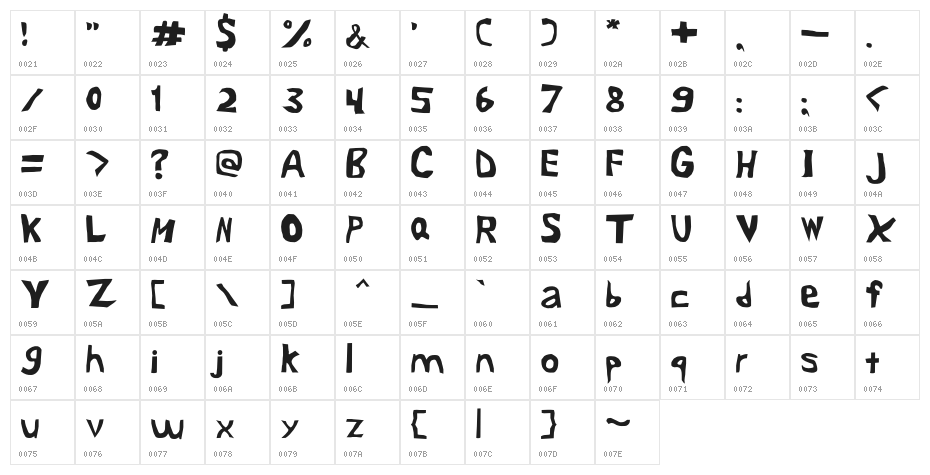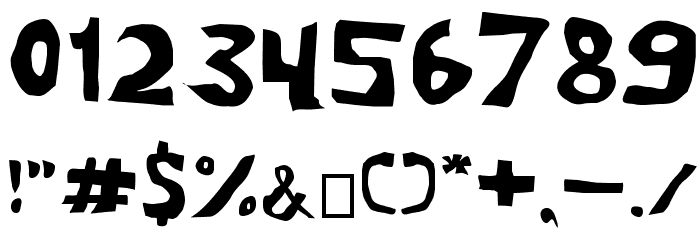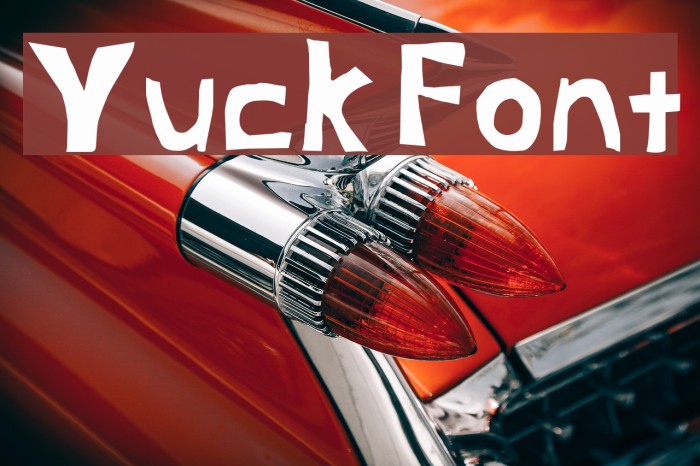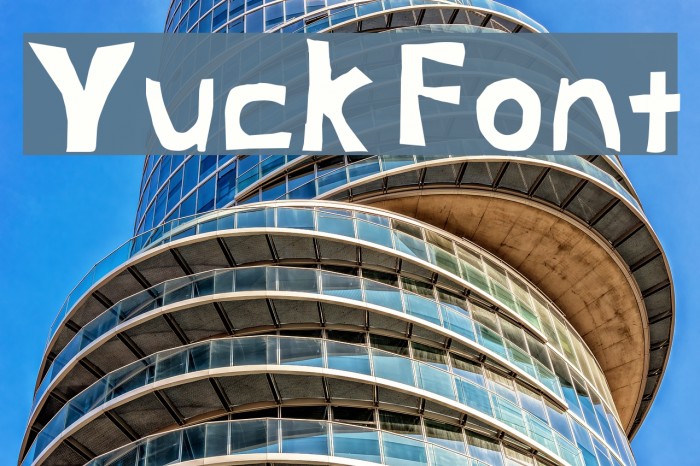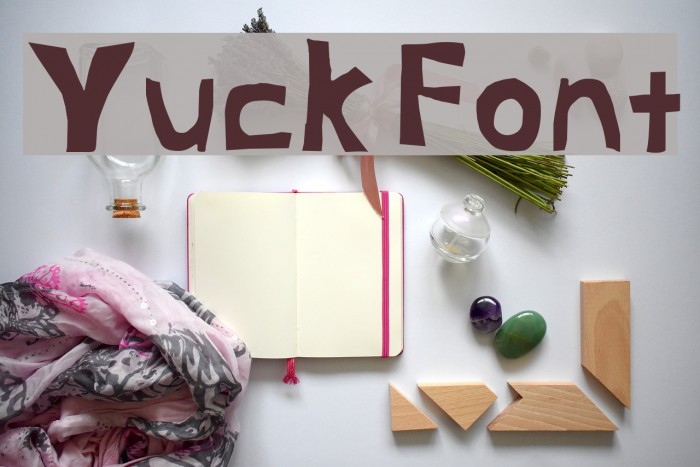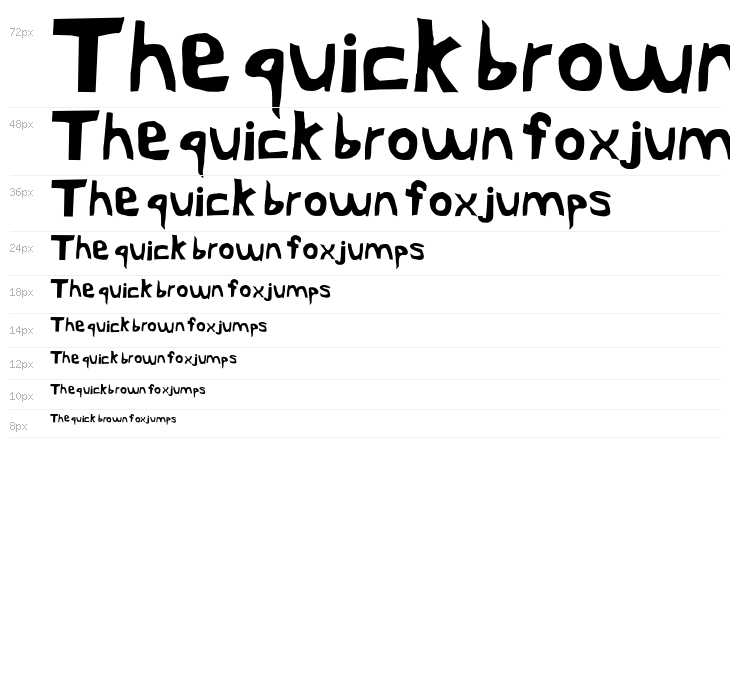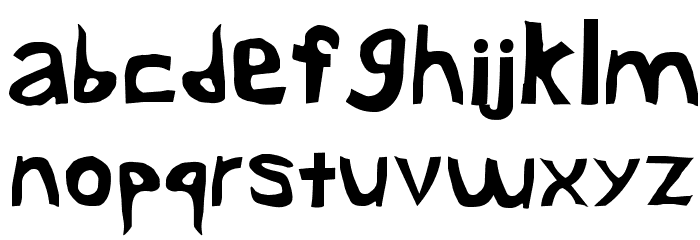
Yuck Font
Yuck Description
This font features a playful and quirky design with irregular, hand-drawn characters. The letters have a bold, uneven stroke that gives them a dynamic and energetic appearance. The uppercase and lowercase letters maintain a consistent style, with exaggerated curves and angles that add to the whimsical feel. Numbers and special characters follow the same playful theme, making the font suitable for creative and informal projects. The overall design is reminiscent of a cartoonish or artistic style, perfect for capturing attention and adding personality to any text.
| Proposed Projects | Ideal for children's books, comic strips, playful branding, and creative posters. |